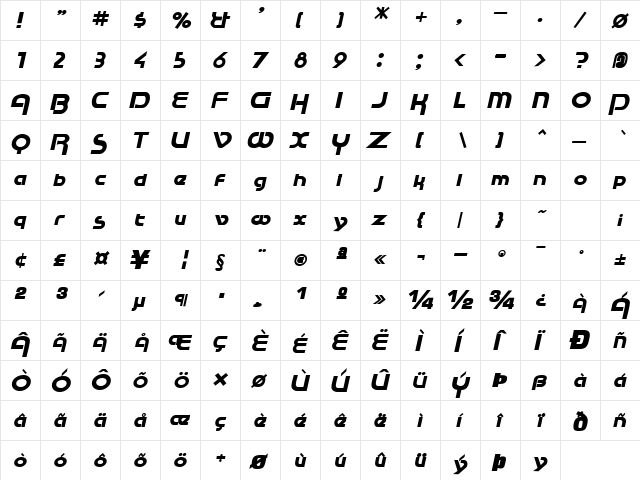
RaceTracSSK BoldItalic
Design Context for RaceTracSSK Typeface
RaceTracSSK is a composed and adaptable typeface that performs quietly and consistently across a wide range of design contexts. The dynamic lean of this cut emphasises speed and emphasis in any layout. Its bold stroke weight gives it real presence on the page.